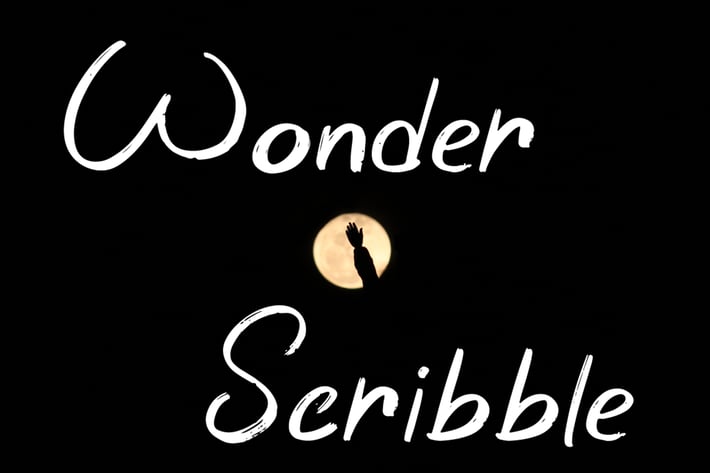
Wonder Scribble - Handwritten Font
Wonder Scribble - Inspired by handwritten font cursive, signature font word that perfect for any design project you have!
Wonder Scribble is perfect for sale design, branding, logo, invitation, stationery, wedding, product packaging, merchandise, monogram,
blog design, game titles, cute style design, Book/Cover Title, movie poster, youtube thumbnail and more.
- Uppercase & lowercase
- numeral & punctuation